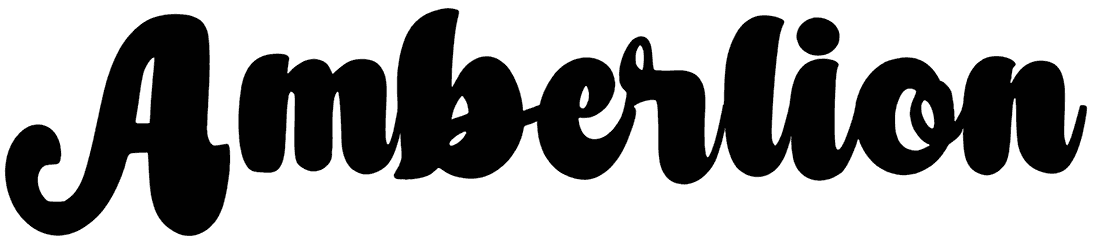
Amberlion Font
Not as a dream, reality same as Amberlion font with a dress-up of sharing wisdom and playful face, light on hither in our stock to organize a memorable graphical illustration.
Bold characters with chunky and funny auras, while leaving out numbers, come up with the power to communicate well. This groovy font can be an endless pick for those who prefer their brand, posters, packaging design, covers, or logotype to always stay at the top.